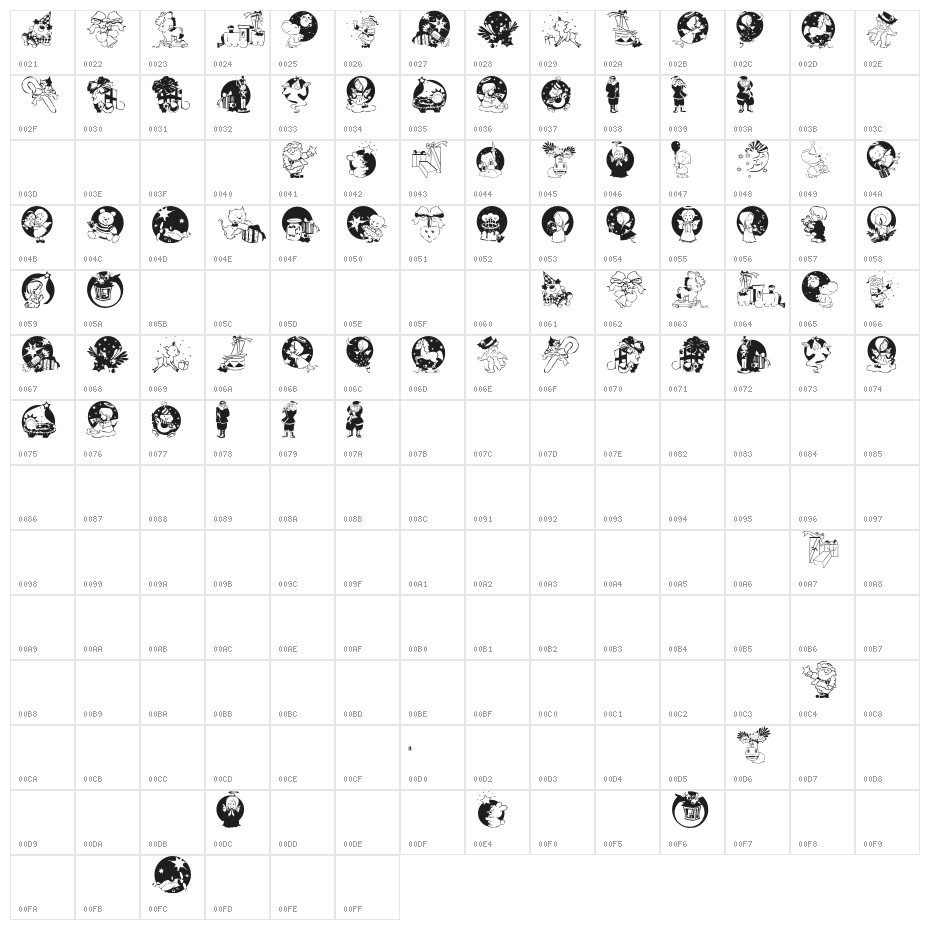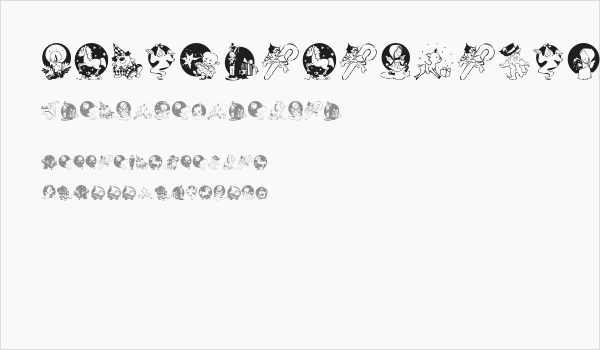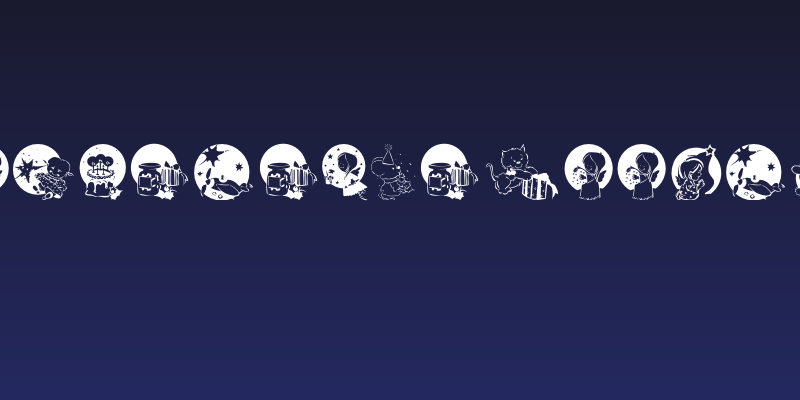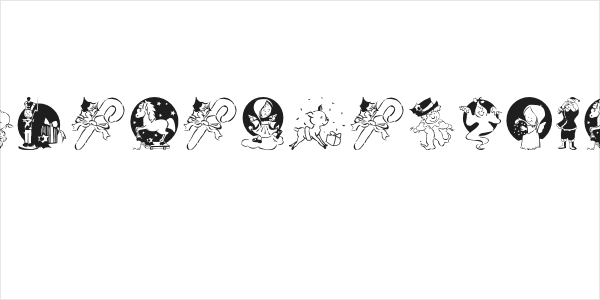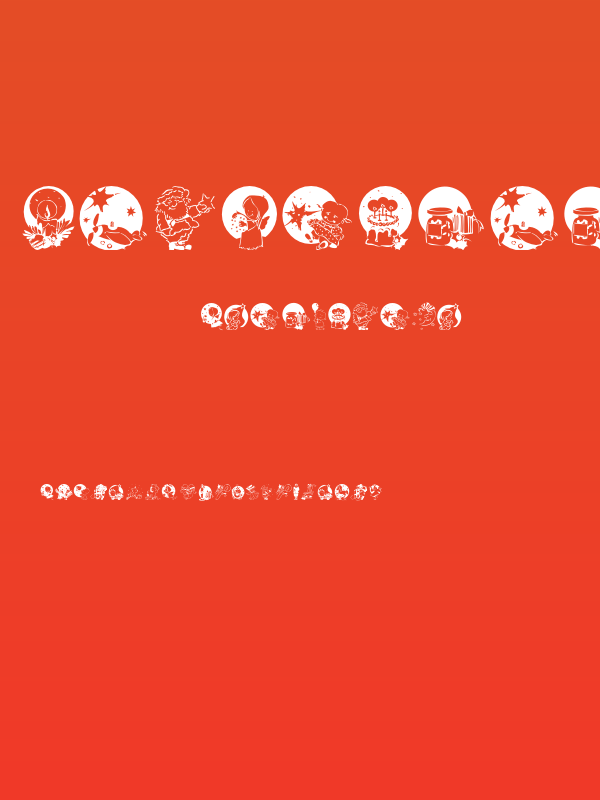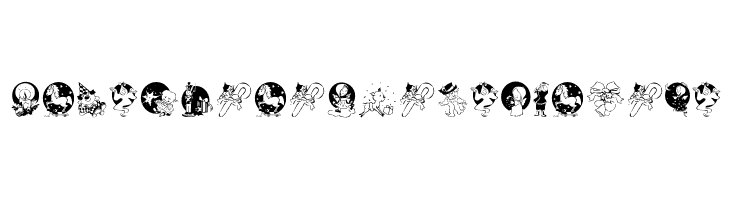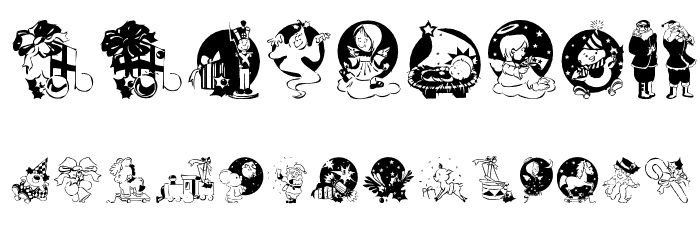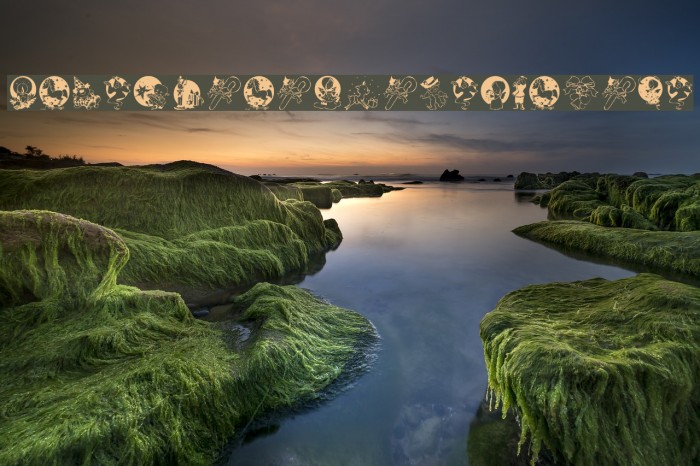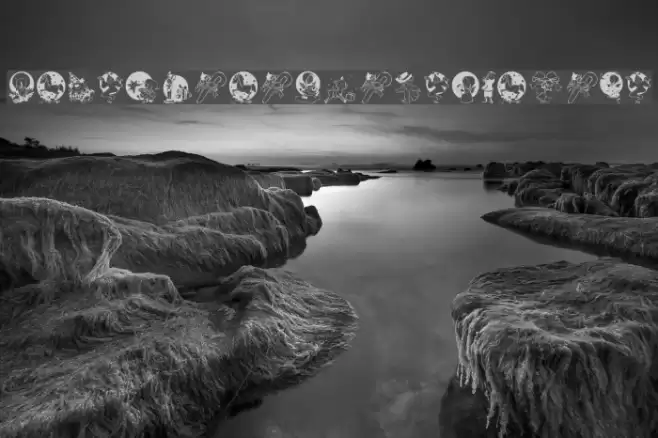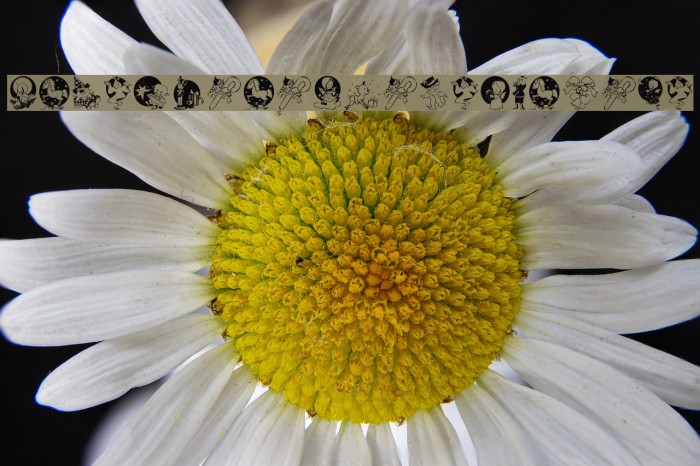
XmasPromotionsSymbols Font
| Style général | Decorative, Whimsical, Festive |
| Cas d'utilisation | Decorative symbols for holiday-themed designs and crafts. |
| Projets proposés | Holiday cards, festive invitations, seasonal posters, gift tags, scrapbooking, decorative borders, and digital holiday content. |